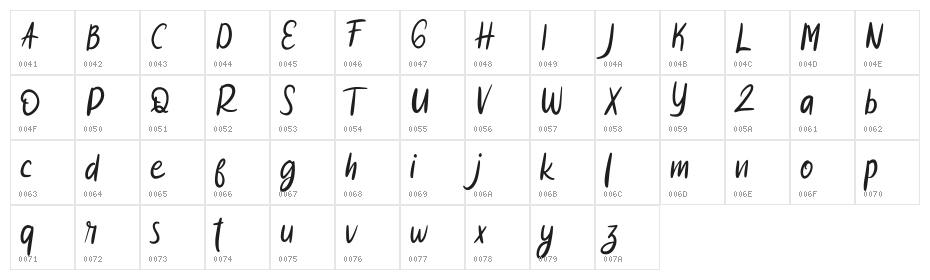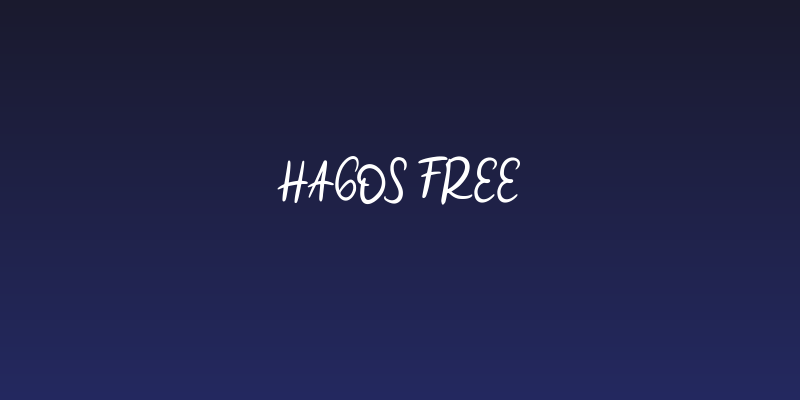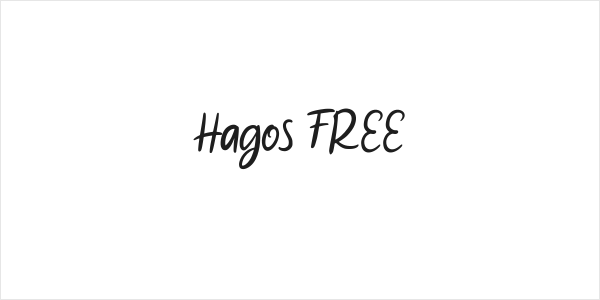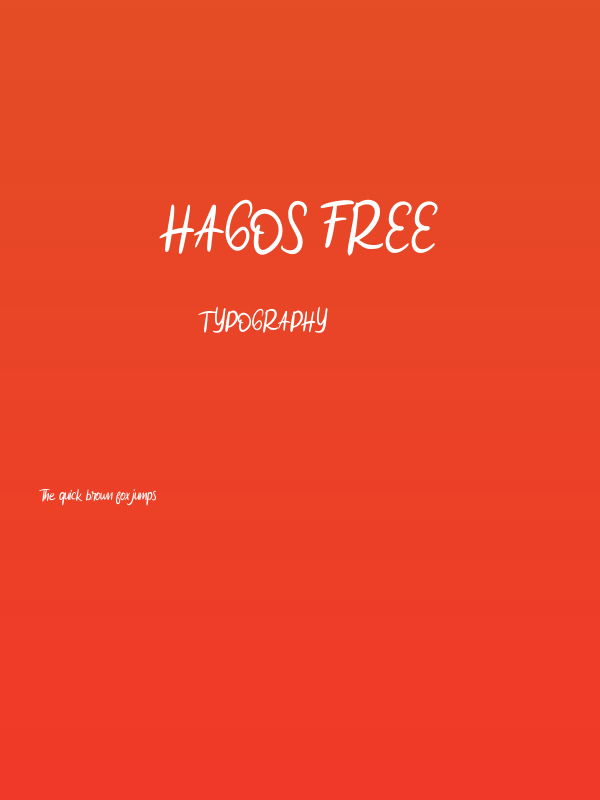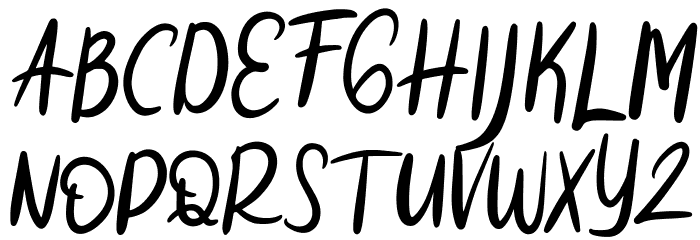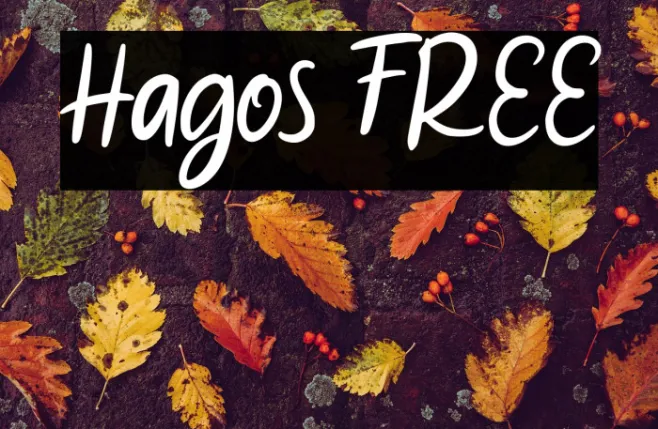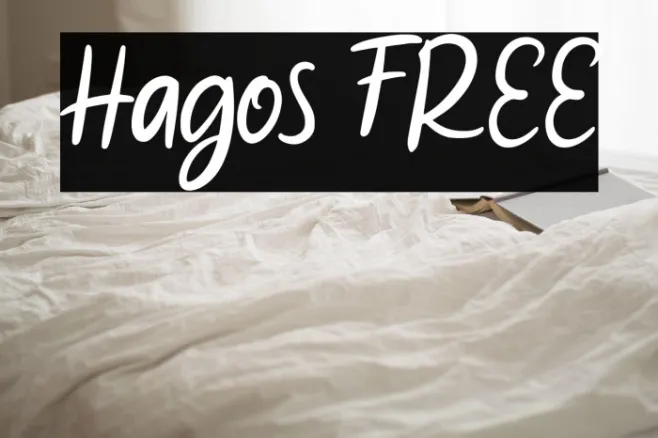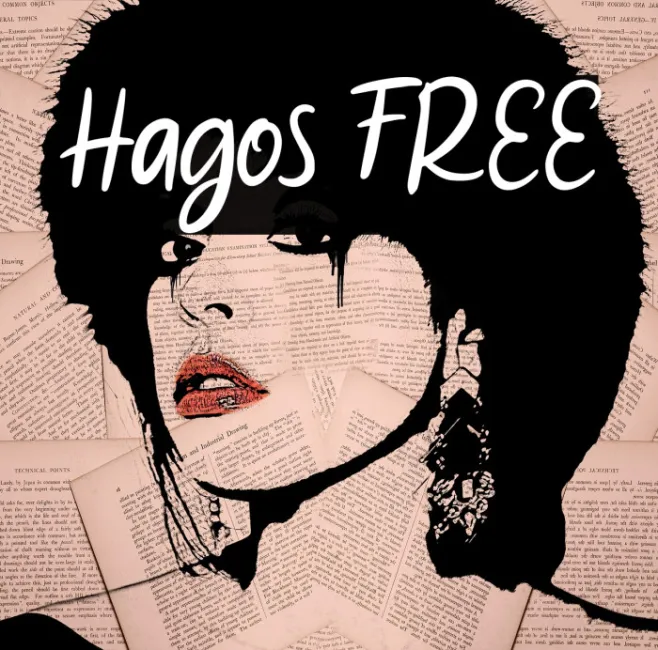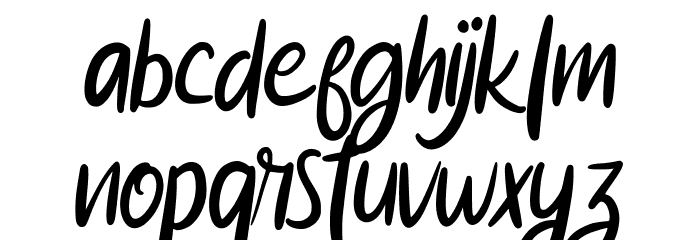
Hagos FREE Font
Hagos FREE Description
This font features a playful and energetic script style with a handwritten appearance. The letters are slightly slanted, giving a dynamic and lively feel. The strokes are bold and consistent, with rounded edges that add a friendly and approachable character. The uppercase and lowercase letters are well-balanced, maintaining a cohesive look throughout. The numbers and special characters are designed to match the overall style, ensuring versatility across various uses. This font's unique personality makes it suitable for creative projects that require a personal touch.
| Proposed Projects | Ideal for greeting cards, invitations, branding, and social media graphics. |